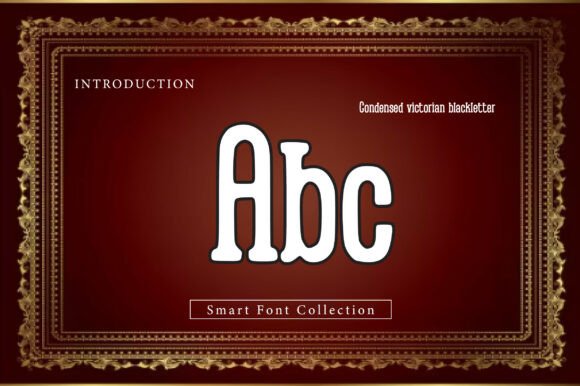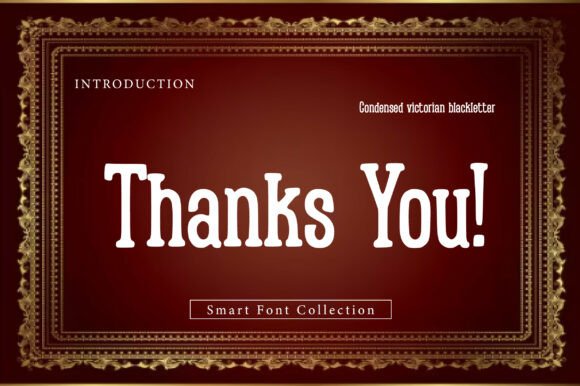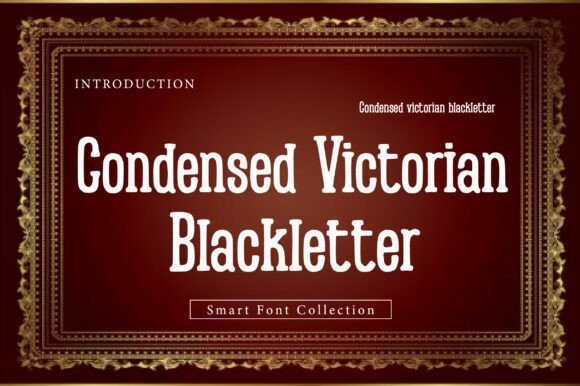
Introduction to Condensed Victorian Font
Condensed Victorian is a narrow and elegant display typeface that combines traditional blackletter foundations with refined Victorian-era styling.
Its tall proportions, delicate curves, and controlled ornamentation give it a sophisticated antique character while maintaining strong visual impact This font is ideal for headlines, posters, logos, editorial design, book covers, and branding projects that seek a vintage Victorian mood with a gothic edge.